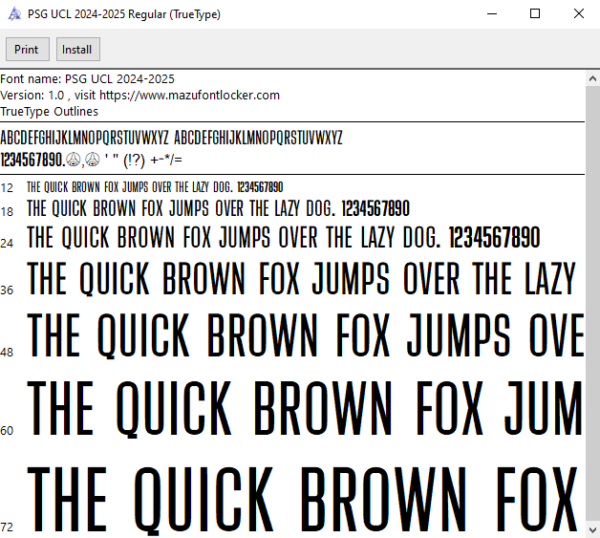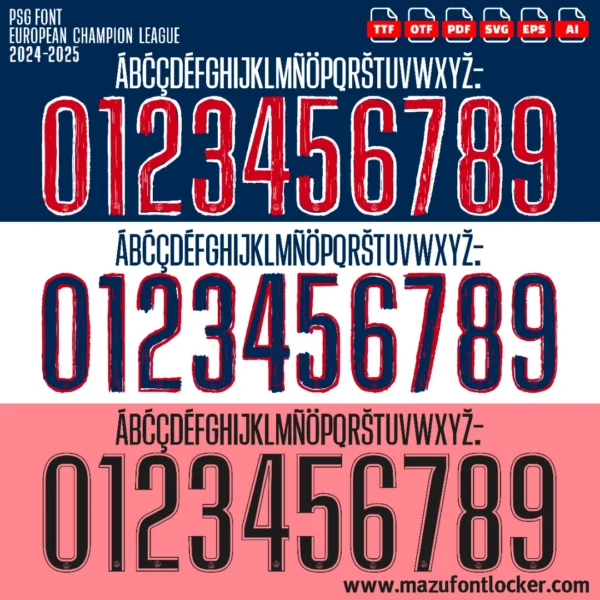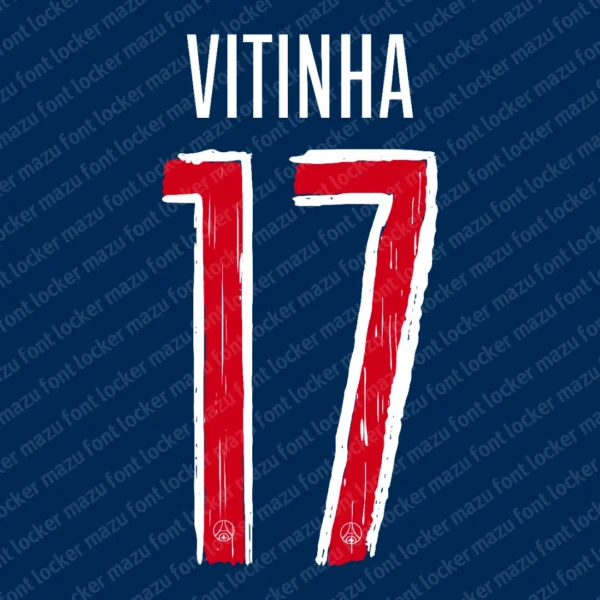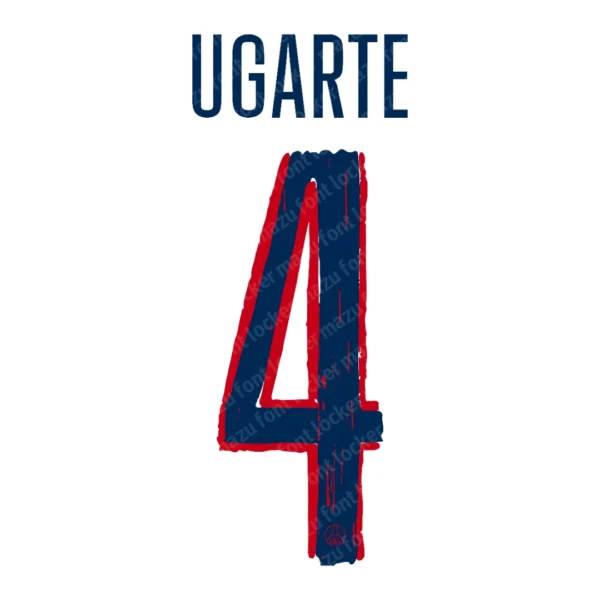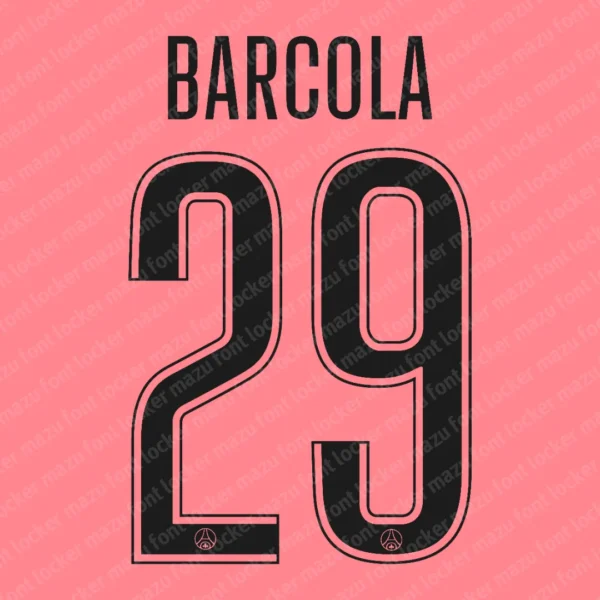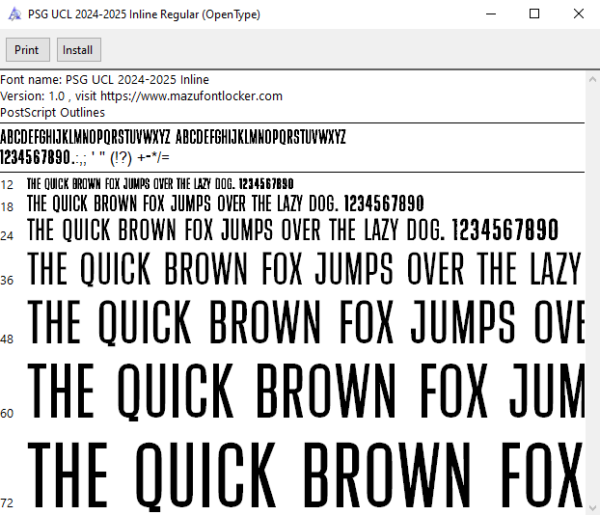
PSG UCL 2024-2025 Font Vector – Stunning Parisian Champions Masterpiece
This premium font faithfully recreates the official UEFA Champions League match lettering worn by Paris Saint-Germain during the 2024-2025 European campaign — delivering authentic Parisian elegance, championship-winning prestige, world-class football heritage, relentless attacking brilliance, tactical excellence, unwavering determination, electrifying European nights, and the unmistakable blue-and-red identity that crowned PSG as the kings of Europe in their historic Champions League-winning season.
PSG UCL 2024-2025 Font Vector – Stunning Champions League Typeface
The PSG UCL 2024-2025 Font Vector is a premium typeface that accurately recreates the official UEFA Champions League match lettering worn by Paris Saint-Germain during their historic 2024-2025 European campaign. This high-quality vector font kit captures every detail of the official tournament typography, allowing designers and football fans to produce authentic jersey designs, mockups, and creative football artwork with professional precision.
Designed for graphic designers, football collectors, content creators, and passionate PSG supporters, the PSG UCL 2024-2025 Font Vector delivers exceptional quality for creating realistic Champions League jersey mockups, football merchandise, posters, social media graphics, YouTube thumbnails, and custom fan projects. Every character has been carefully recreated to match the official UEFA Champions League shirt lettering used throughout the unforgettable 2024-2025 season.
Why Choose PSG UCL 2024-2025 Font Vector
This font kit stands out thanks to its authentic vector construction and tournament-accurate styling. Every letter and number has been recreated to match the official UEFA Champions League nameset worn by Paris Saint-Germain during the 2024-2025 campaign. Whether you’re producing jersey concepts, football graphics, or collectible artwork, the PSG UCL 2024-2025 Font Vector provides a clean, professional, and realistic finish.
The lettering featured in the PSG UCL 2024-2025 Font Vector follows the official UEFA Champions League nameset style with clean geometric forms, modern proportions, and outstanding legibility. The balanced structure delivers a premium appearance suitable for both digital and print applications.
The numerals feature bold construction, smooth curves, and perfectly balanced spacing that faithfully reproduce the official Champions League player numbers. Every character is created as a scalable vector, ensuring crisp results for jersey customization, posters, banners, stickers, and large-format printing.
• Complete uppercase A–Z alphabet and numbers 0–9 in authentic PSG UCL 2024-2025 style
• Special PSG crest glyph – Press the “:” (Colon) key to insert the club logo
• Includes authentic crest glyph placement beneath player numbers
PSG UEFA Champions League 2024-2025 Season
The 2024-2025 UEFA Champions League campaign became one of the most memorable seasons in Paris Saint-Germain’s history as the club reached the pinnacle of European football. Wearing their iconic navy home kit, PSG showcased exciting attacking football throughout the tournament while establishing a new chapter in the club’s legacy. The official UEFA Champions League lettering perfectly complements the elegant shirt design with its clean, modern appearance.
Competing against Europe’s elite clubs, Paris Saint-Germain demonstrated consistency, technical excellence, and attacking brilliance throughout the competition. This official Champions League font became part of one of the club’s most iconic modern seasons, making it an essential addition for football designers, collectors, and PSG supporters.
The PSG UCL 2024-2025 Font Vector is an independently designed typeface package inspired by the official UEFA Champions League shirt lettering worn by Paris Saint-Germain during the 2024-2025 season. It has been carefully recreated for football enthusiasts, graphic designers, collectors, and creators producing custom jersey concepts, football artwork, and fan-made projects.